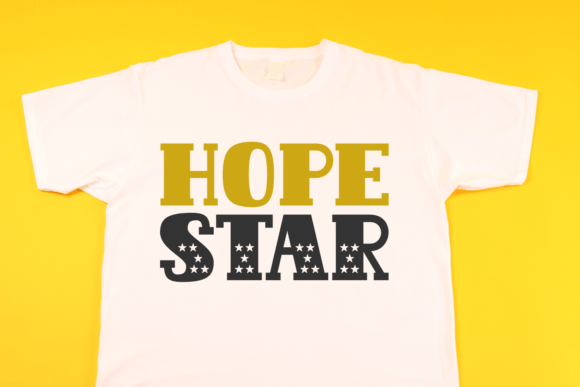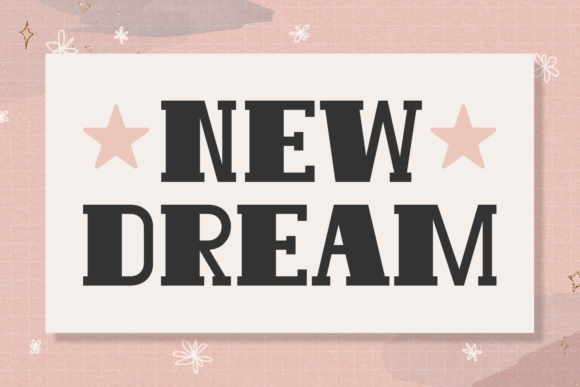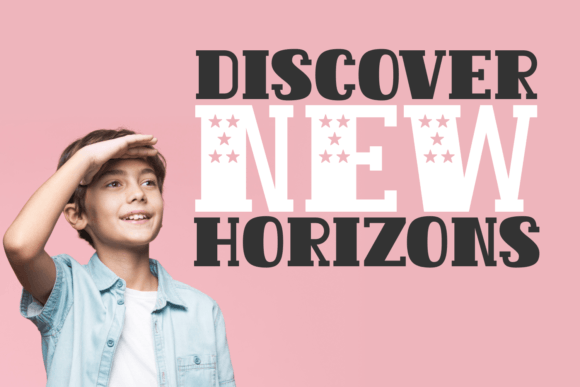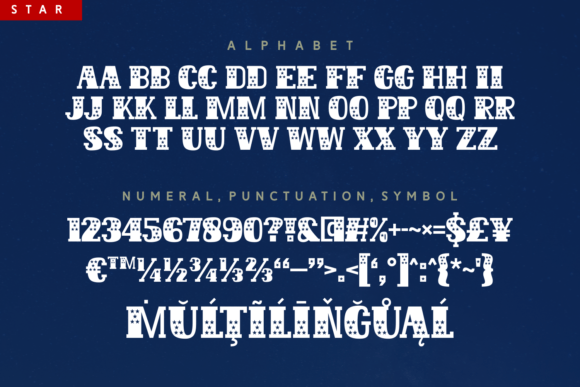
Introduction to Sky and Stars Font
Have you ever gazed up at the starry night sky and felt inspired to create something magical? That’s exactly what happened to us when we stumbled upon the breathtaking Sky and Stars Font. This enchanting font is a perfect blend of creativity and whimsy, making it an ideal choice for designers looking to add a touch of celestial wonder to their projects.
As designers, we’re always on the lookout for unique and high-quality design resources to elevate our creative projects. The Sky and Stars Font is a valuable addition to any designer’s toolkit, offering a wide range of applications, from logos and branding to book titles and posters. And the best part? It’s available for free download, making it an accessible and transparent design resource for creatives of all levels.
Key Features of Sky and Stars Font
- High-quality vector design, ideal for creative projects and professional use
- Unique, hand-drawn style that adds a touch of whimsy and magic to any design project
- Perfect for use in a variety of creative contexts, from children’s book illustrations to wedding invitations and more
Honest Review: Sky and Stars Font
As a designer, I’m always on the lookout for high-quality design resources to elevate my creative projects. Recently, I stumbled upon the Sky and Stars Font, and I must say, it’s been a game-changer.
Here are some aspects that work well: ✨ The font’s transparent background makes it incredibly versatile for use on any design background. ✨ The font’s sleek and modern design makes it perfect for a wide range of creative projects. ✨ The free download option is a major plus, making it accessible to designers of all levels.
However, there are a few limitations: ⚠️ The font could benefit from more character options, especially for languages that require a wider range of characters. ⚠️ The font’s scalability can be a bit wonky at very small sizes, so it’s essential to test it thoroughly before use.
Overall, I’m thoroughly impressed with the Sky and Stars Font. Its high quality and versatility make it an excellent addition to any designer’s toolkit. If you’re looking for a reliable design resource for your creative projects, I highly recommend giving it a try.
Here are some of the font’s key features:
- Transparent background for versatility
- Modern and sleek design
For the best results, use the Sky and Stars Font in conjunction with high-quality images and a clear, transparent background. This will allow your design to shine and make it a standout resource for your creative project.
The Sky and Stars Font is perfect for designing invitations, posters, and social media graphics. Its unique style and transparent background make it a valuable resource for any creative project.